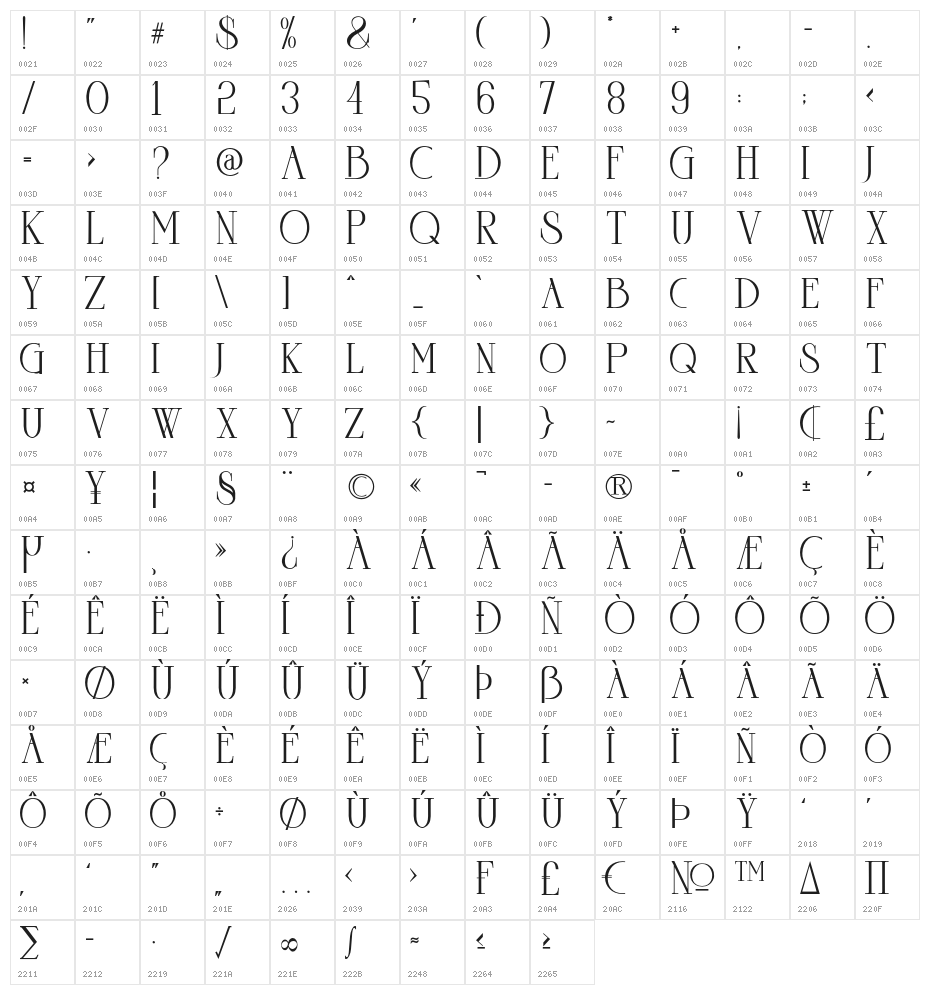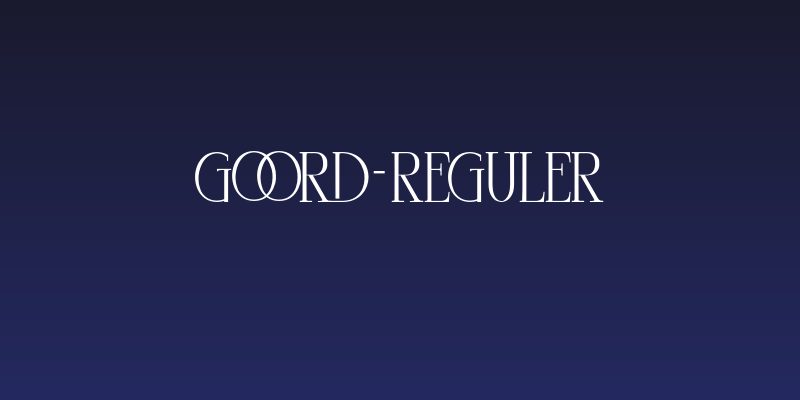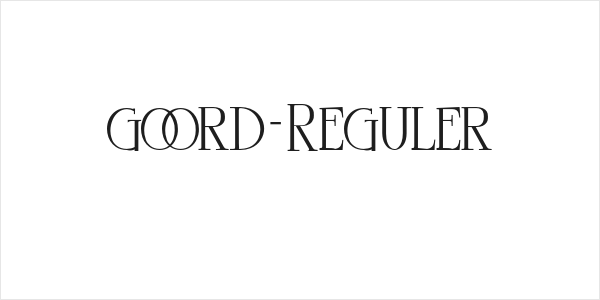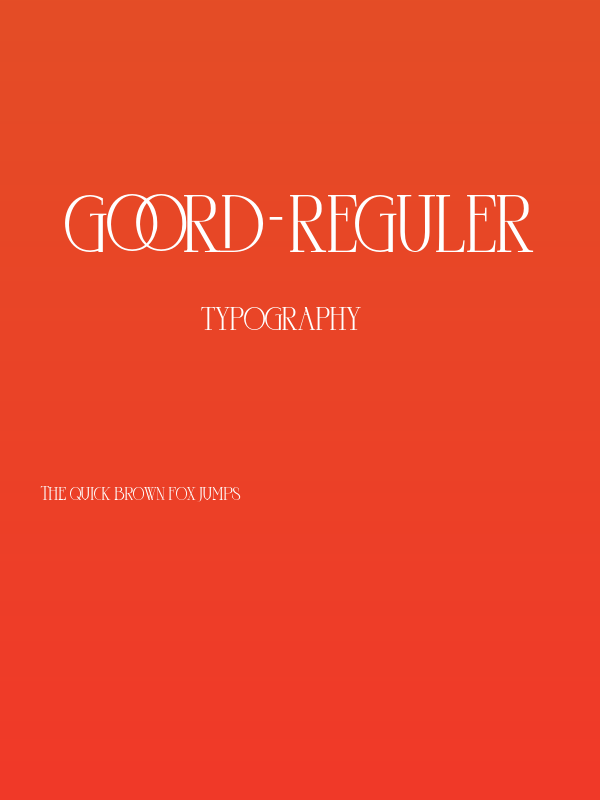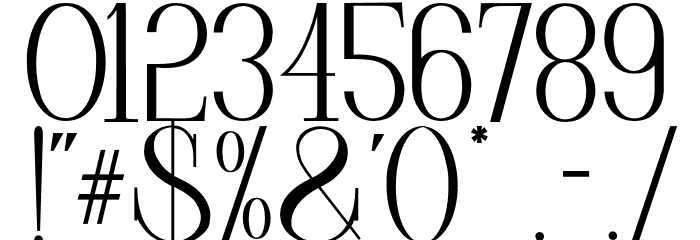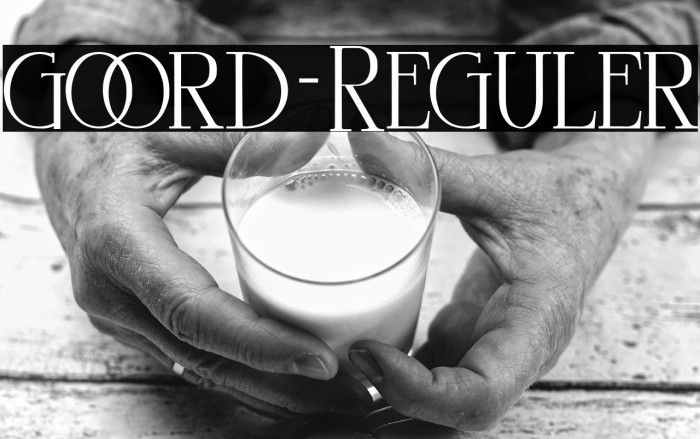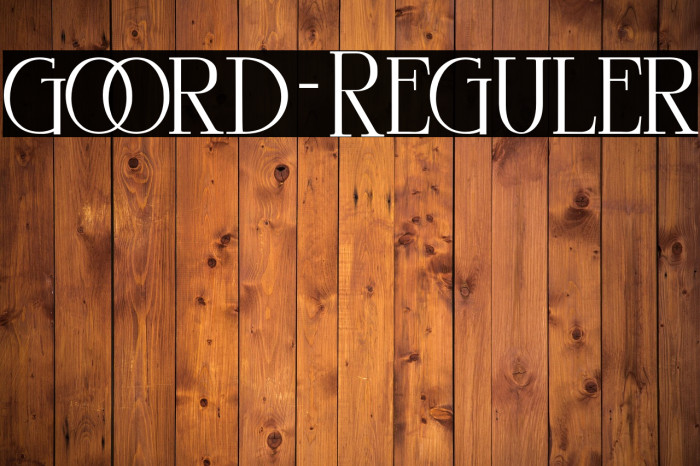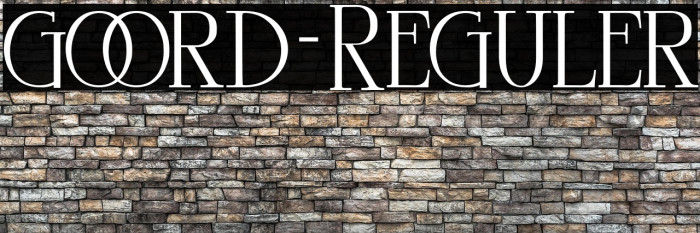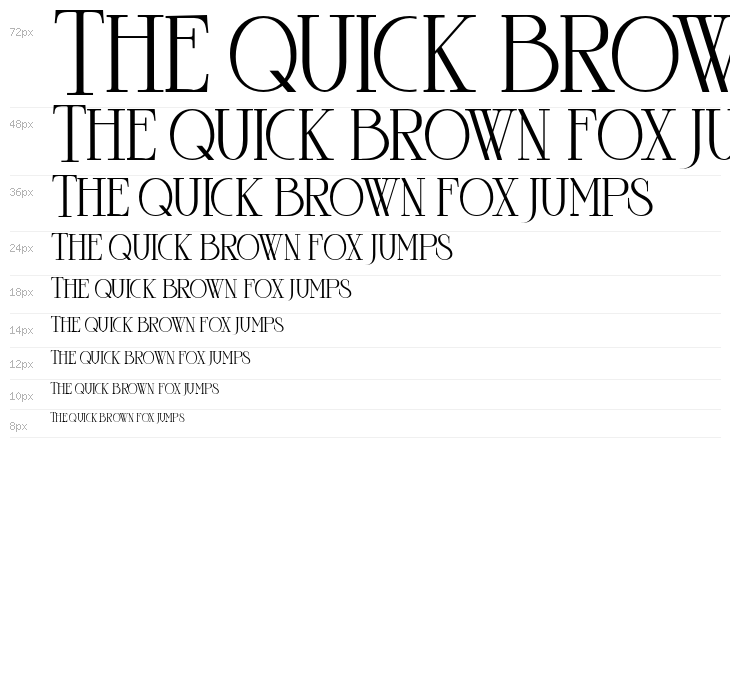
goord-Reguler Font
goord-Reguler Description
This font features a classic and elegant serif style with high contrast between thick and thin strokes. The characters are tall and narrow, giving a sophisticated and refined appearance. The serifs are sharp and pronounced, adding a touch of formality and tradition. The uppercase letters are particularly striking, with a graceful and timeless aesthetic. The numerals and special characters maintain the same elegance, ensuring consistency throughout the typeface. This font is well-suited for projects that require a touch of class and sophistication.
| Proposed Projects | Ideal for luxury branding, editorial design, wedding invitations, and high-end product packaging. |